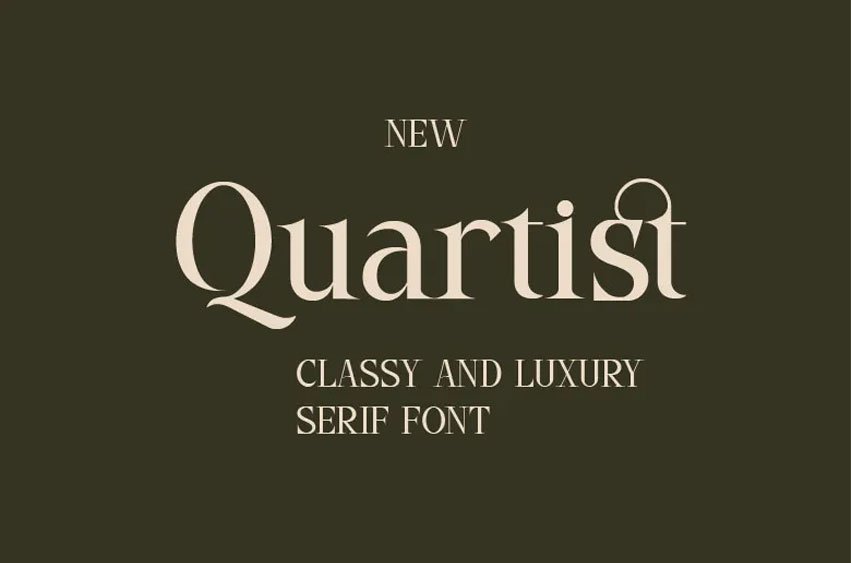
Quartist Font
Quartist Font is a polished serif typeface with a high-end feel. It balances beauty with daily usability. Designers use it for body copy, display text, and brand logos. The font offers a calm and relaxed tone while portraying clarity and purpose.
Each letterform feels considered and confident. It adapts easily across digital projects and print. It fits editorial layouts, branding systems, and premium designs. The Quartist font offers style, readability and a quiet confidence to each contemporary creative designs.